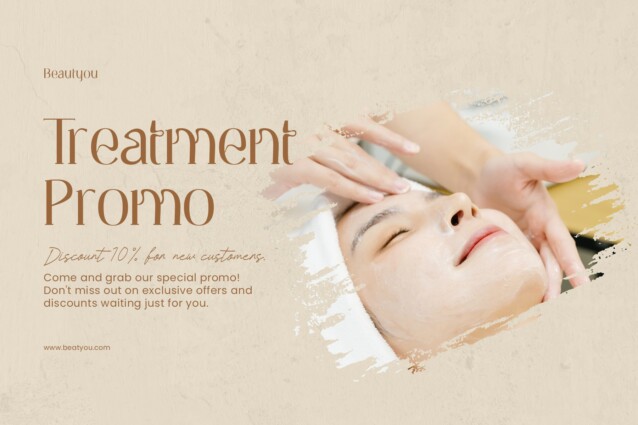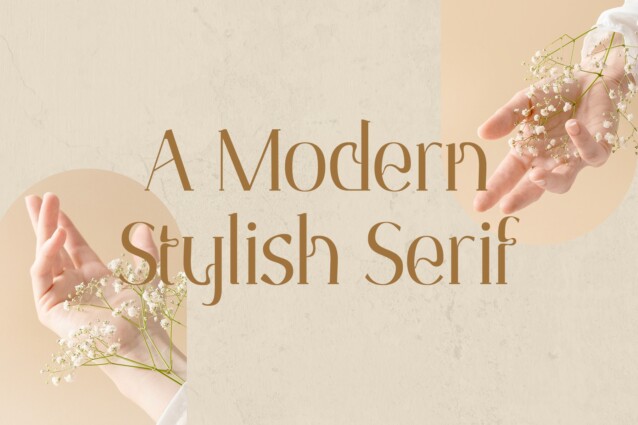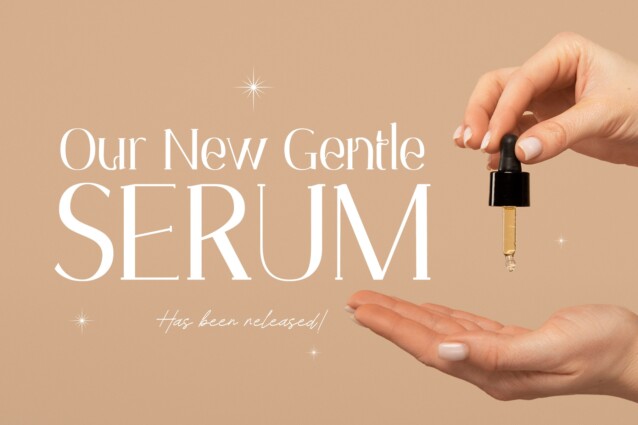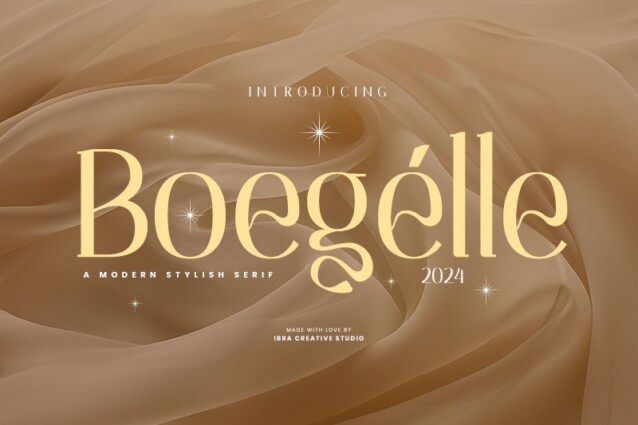
Boegelle Font
Boegelle Font is a display font designed by ibracreative with elegance and unique looks crafted especially for fashion design. The font seamlessly marries traditional serif elements with contemporary aesthetics, resulting in a typeface that exudes elegance and versatility. Boegelle’s letterforms boast a balanced combination of sharp serifs and smooth curves, creating a visual harmony that is both timeless and contemporary. The typeface’s clean lines and thoughtful spacing contribute to its readability across various mediums, making it an ideal choice for both digital and print applications. Whether used for editorial design, branding, or web interfaces, Boegelle stands as a testament to the seamless integration of classic typographic principles with a modern, stylish sensibility.